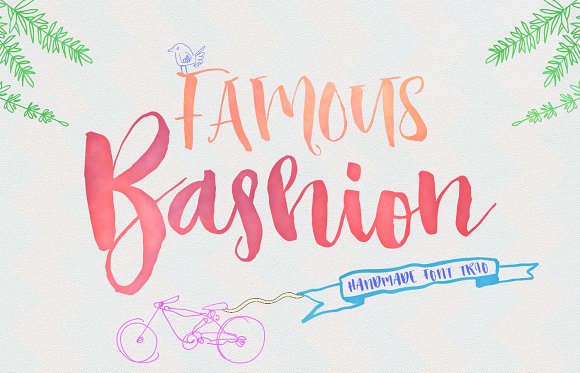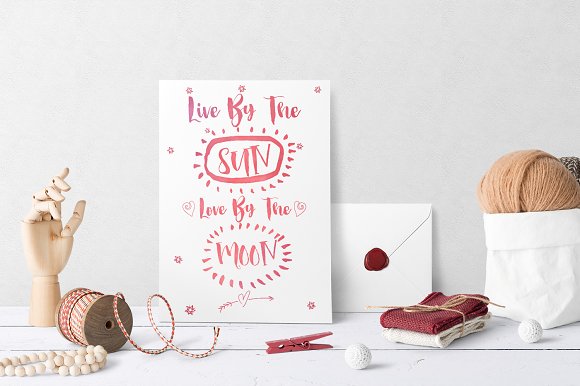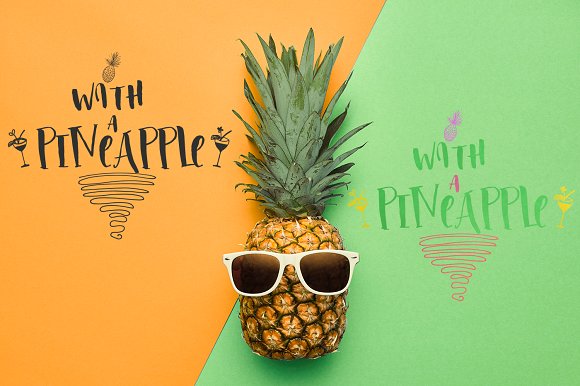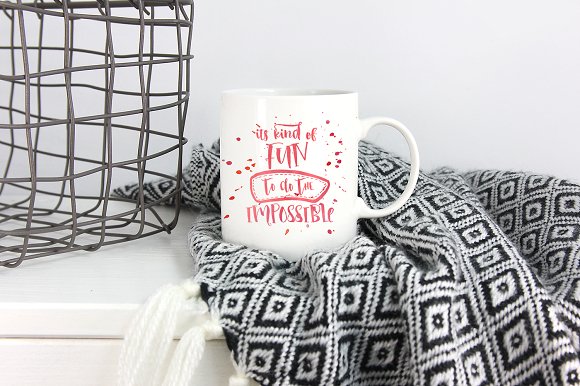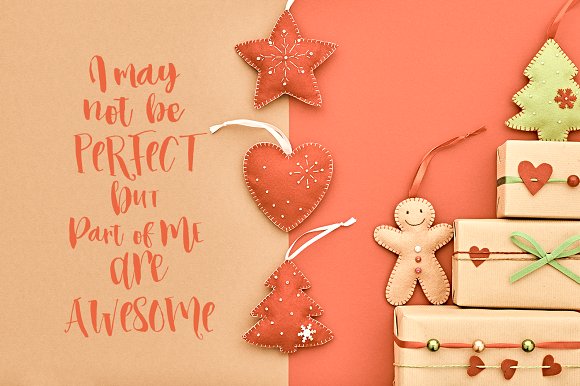
Famous Bristol 3 Font
Characteristic company logosBlog pages Logo of brands Projects you need to utilize a premium font The projects that require a font including lots of alternates.Letters contain marker fading and italic state is made normal also naturalness draws attention